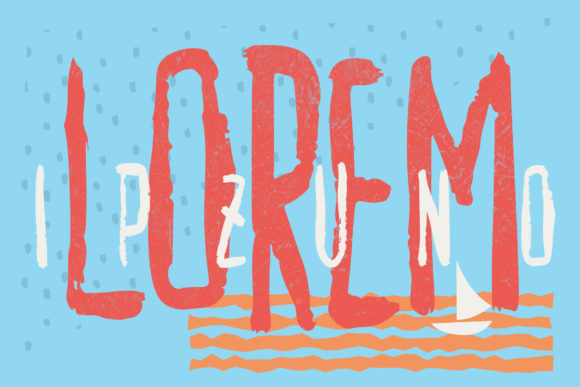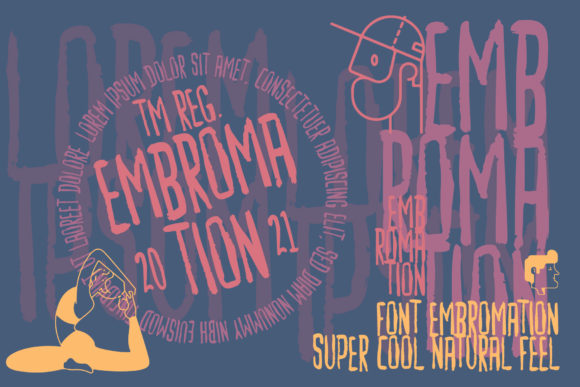
Introducing Embromation Font: A Fun and Versatile Display Font
Are you tired of using the same old fonts in your designs? Look no further than Embromation Font, a fun and rough styled display font that’s sure to elevate your creations. With its unique blend of playfulness and ruggedness, Embromation Font is an incredibly valuable asset to add to your font library.
The Characteristics of Embromation Font
Embromation Font is a display font that exudes a sense of fun and carefree spirit. Its rough, irregular texture gives it a hand-crafted feel that’s perfect for designs that require a personal touch. The font’s playful nature makes it ideal for use in a variety of contexts, from bold headlines and titles to creative branding and advertising campaigns.
Why Embromation Font is a Great Addition to Your Font Library
No matter the topic or theme of your design, Embromation Font is versatile enough to complement it perfectly. Whether you’re working on a project for a fashion brand, a tech startup, or a non-profit organization, this font is sure to add a touch of personality and whimsy. Its rough texture and playful vibe also make it a great choice for designs that require a more laid-back or bohemian feel.
The Benefits of Using Embromation Font in Your Designs
So why should you consider adding Embromation Font to your font library? Here are just a few benefits of using this versatile and fun display font:
- Instantly adds personality to your designs: Embromation Font’s unique texture and playful vibe make it the perfect choice for designers who want to add a touch of personality to their work.
- Versatile and adaptable: Whether you’re working on a bold headline or a creative branding campaign, Embromation Font is versatile enough to adapt to any design context.
- Perfect for creative projects: If you’re working on a project that requires a more laid-back or bohemian feel, Embromation Font is the perfect choice.
- Easy to read: Despite its rough texture, Embromation Font is surprisingly easy to read, making it perfect for use in body copy as well as headlines.
How to Use Embromation Font in Your Designs
So how can you start using Embromation Font in your designs? Here are a few tips to get you started:
- Use it as a headline font: Embromation Font is perfect for use in bold headlines and titles, where its playful vibe and rough texture can really make an impact.
- Pair it with a clean font: For body copy, pair Embromation Font with a clean, sans-serif font to create a striking contrast.
- Experiment with different colors: Embromation Font looks great in a variety of colors, so don’t be afraid to experiment and find the perfect hue for your design.
| Font Name | Embromation Font |
| Author | VTKS Design |
In conclusion, Embromation Font is a fun and versatile display font that’s sure to elevate your designs. With its unique blend of playfulness and ruggedness, it’s the perfect choice for designers who want to add a touch of personality to their work. Whether you’re working on a bold headline or a creative branding campaign, Embromation Font is an incredibly valuable asset to add to your font library.